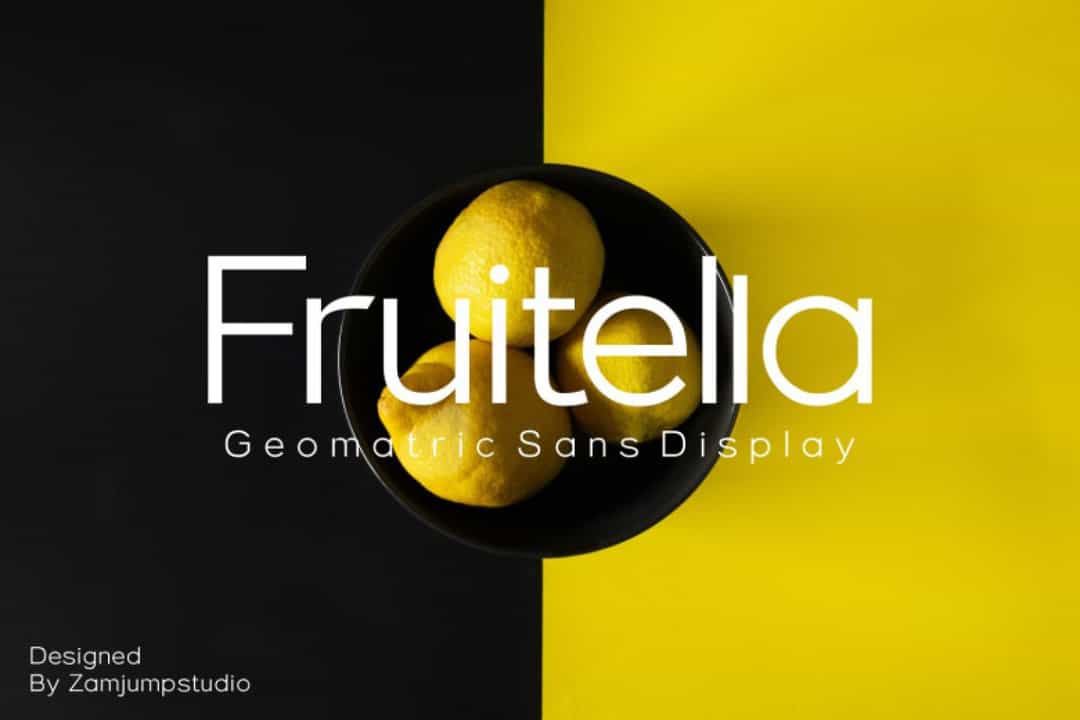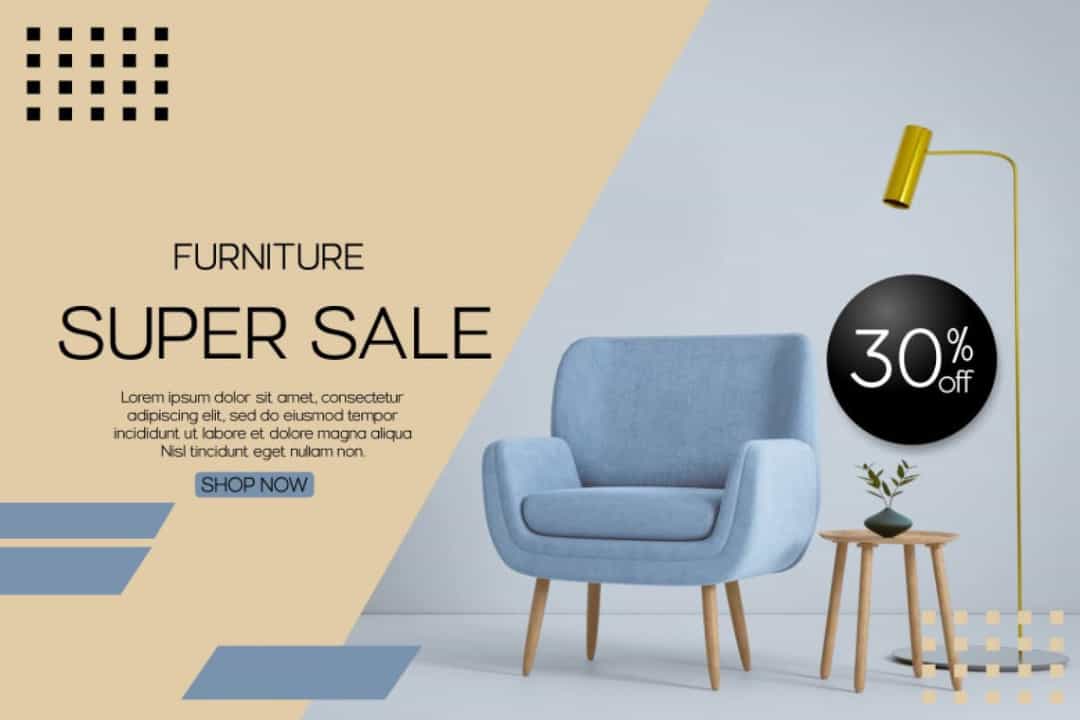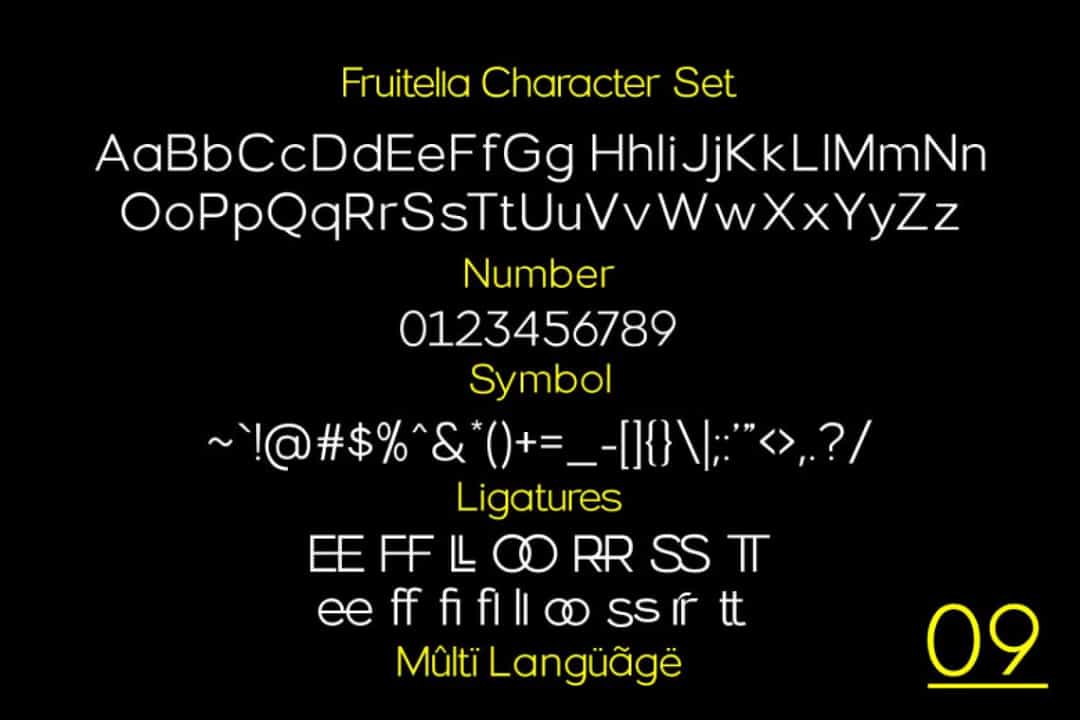
Fruitella is an abstract sans serif font design created with strong opentype features and with special attention paid to its ligature standards, distinguishable from general use ligatures. Perfect for graphic design and display purposes – signage, websites corporate as well as editorial design alike can utilize Fruitella’s sleek lines.